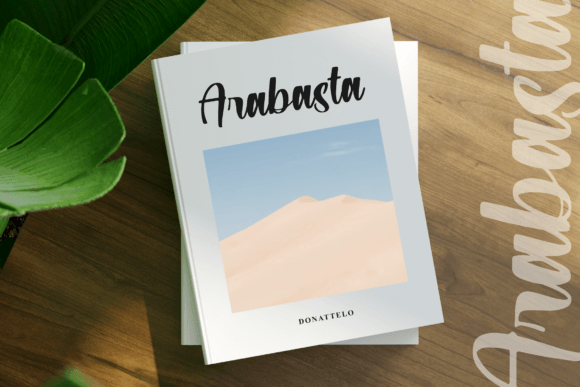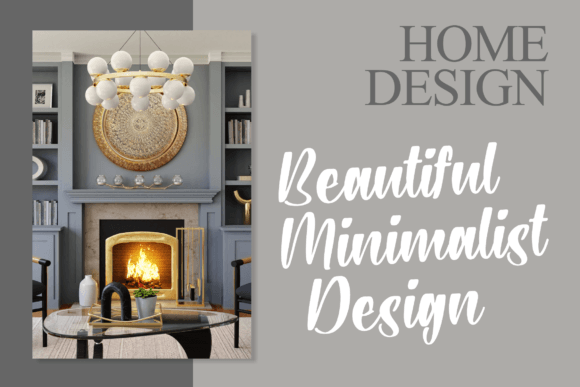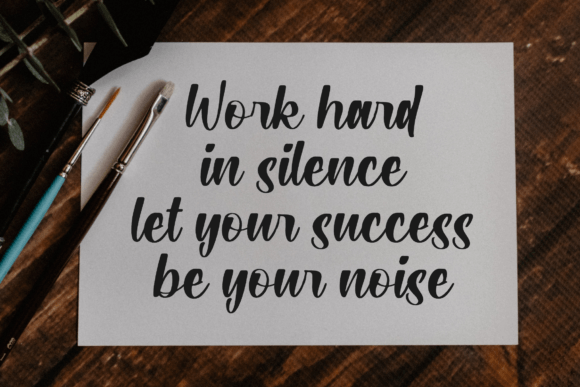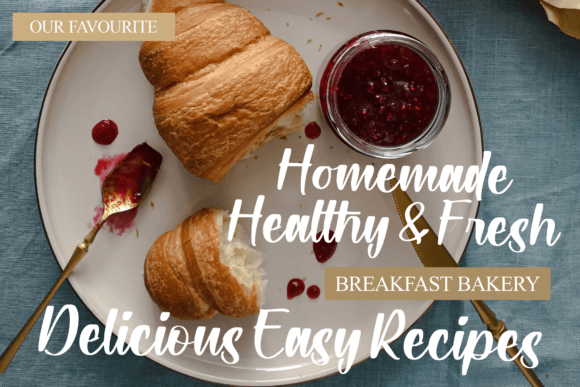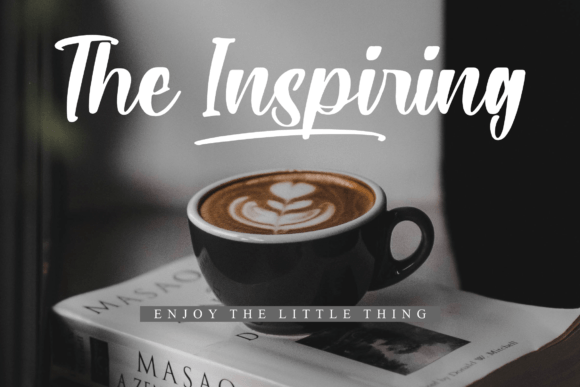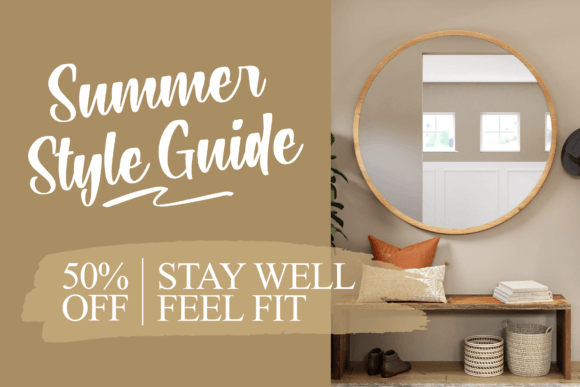
Introduction to Romanth Cattalis Font Font
Fonts play a crucial role in design, and the Romanth Cattalis Font font is a typeface that brings both character and versatility to any project. Whether you’re working on a branding project, a website, or a print design, the Romanth Cattalis Font font offers a unique style that can elevate your work.
Romanth Cattalis is a sweet and cursive handwritten font.
This gentle font will look gorgeous on a variety of design ideas It will add a joyful and romantic touch to each of your projects.
The Romanth Cattalis Font font is more than just a typeface – it’s a design tool that helps you communicate your message with style and clarity. Its unique character set and versatile design make it suitable for a wide range of applications, from elegant invitations to bold headlines.
With its carefully crafted letterforms and balanced proportions, the Romanth Cattalis Font font ensures readability and visual appeal across all mediums.
What makes Romanth Cattalis Font font special?
The Romanth Cattalis Font font stands out with its unique design, exceptional readability, and versatility across various design applications.